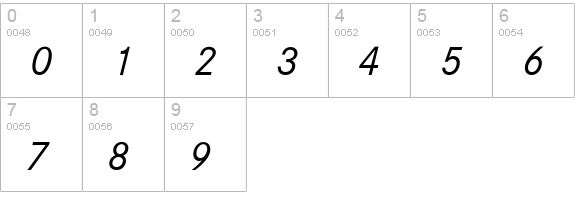
Corporate S Italic is a distinctive, italic variant in the Corporate typeface family \xE2\x80\x94 well suited to design and typography projects.
The Corporate S Italic font exudes elegance and professionalism with its sleek and modern design. Its slanted italic style adds a touch of sophistication to any project, making it perfect for corporate and business materials. This versatile font is ideal for headlines, logos, and other design elements where a refined and polished look is desired. What makes Corporate S Italic font even more appealing is that it is available for free download at FontsMarket.com. This means that you can easily access this high-quality font without any cost, making it a valuable addition to your design toolkit. Don't miss out on the opportunity to elevate your projects with the Corporate S Italic font - download it for free today!